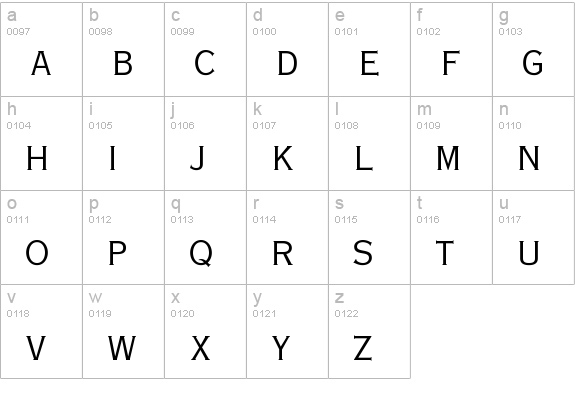
Copperplate Gothic Std 29 AB Font Details
Copperplate Gothic Std 29 AB is a modern and stylish font that exudes elegance and sophistication. With its clean lines and sharp edges, this font is perfect for adding a touch of class to any design project. Whether you're creating invitations, logos, or signage, Copperplate Gothic Std 29 AB will make your text stand out with its unique aesthetic. What's even better is that this font is available for free download at FontsMarket.com. You can easily access this beautiful typeface and use it in your creations without any cost. So why wait? Download Copperplate Gothic Std 29 AB today and elevate your design projects with its timeless appeal.